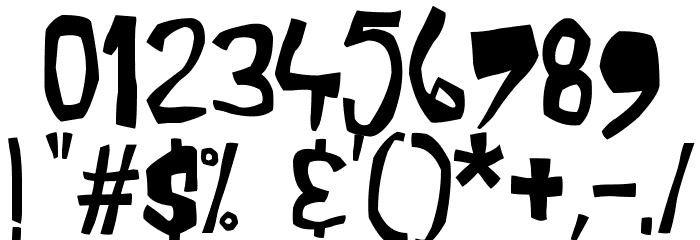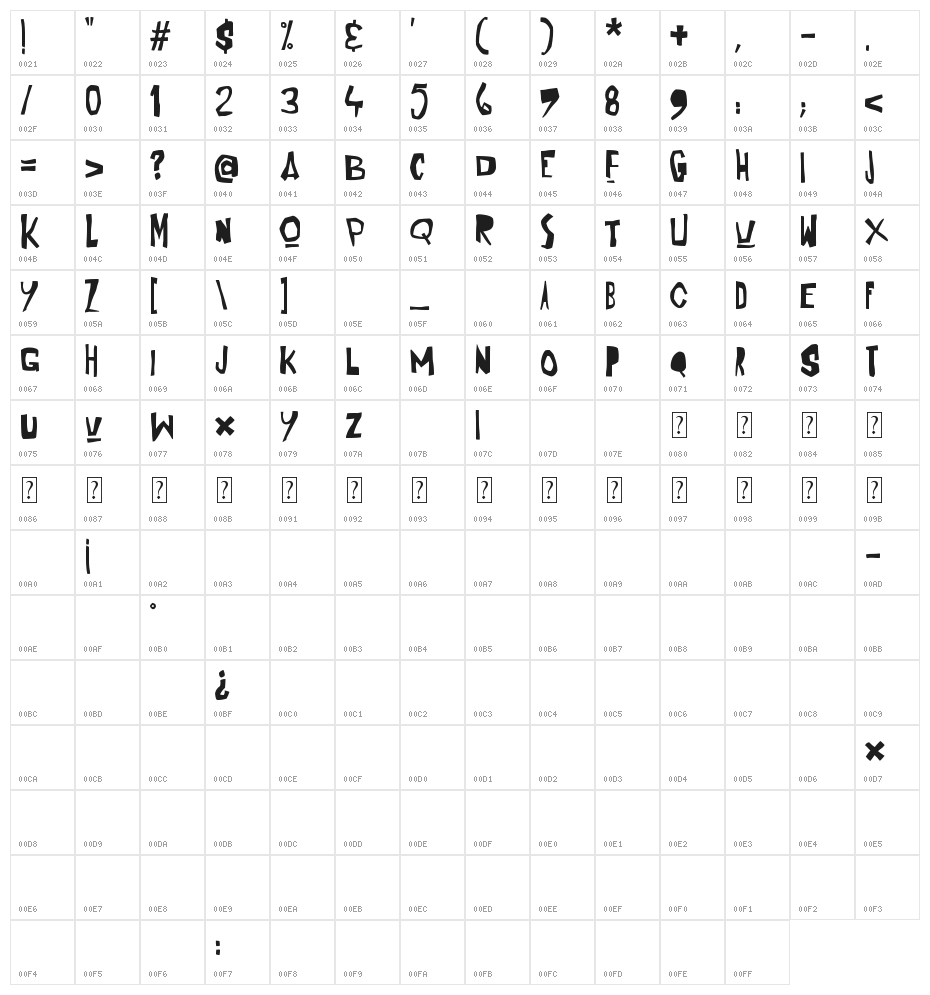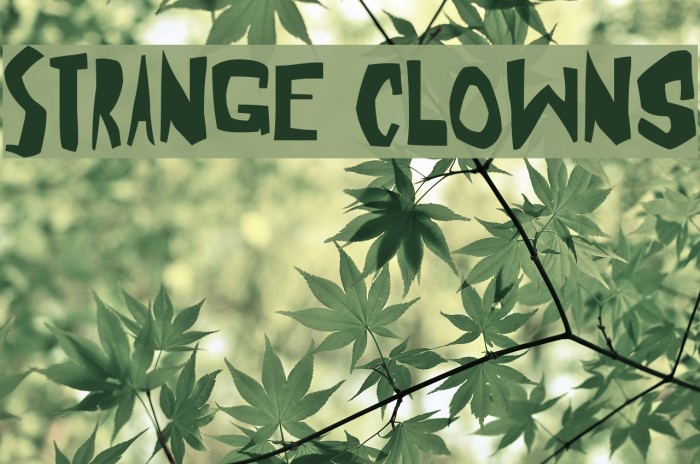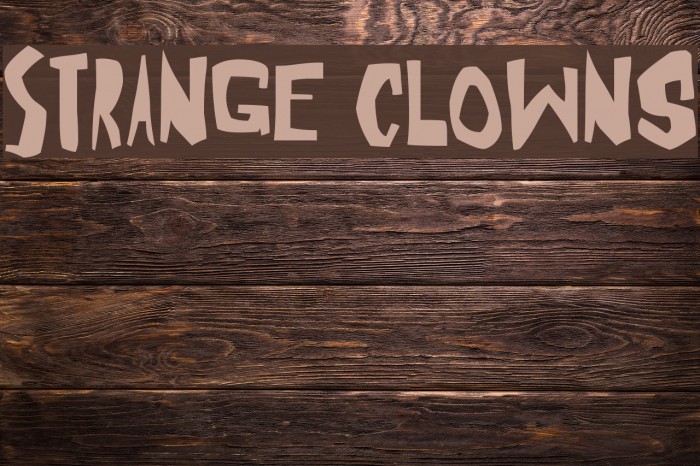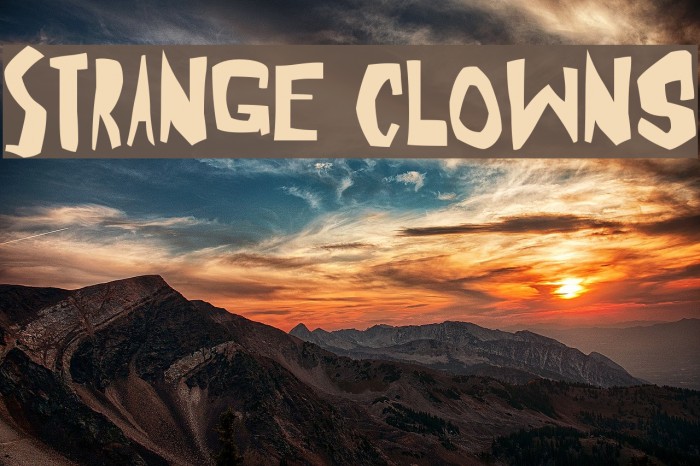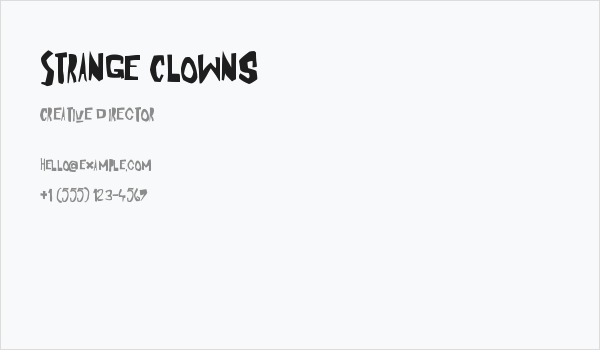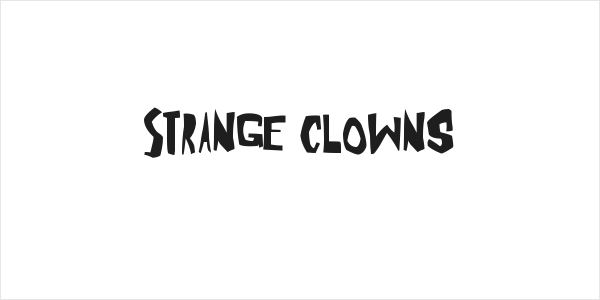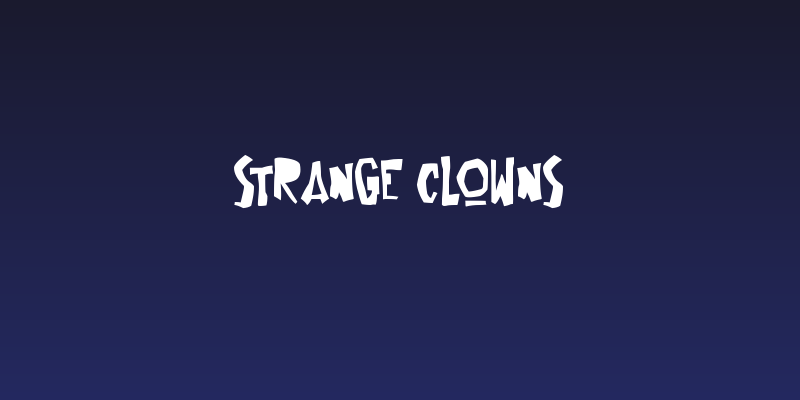
Strange Clowns Font
Strange Clowns Description
This font exudes a playful and whimsical vibe with its irregular, bold letterforms that seem to dance across the page. Each character is uniquely shaped, giving the font a hand-drawn, artistic feel. The uppercase and lowercase letters maintain a consistent style, while numbers and special characters add to the quirky aesthetic. The font's uneven lines and varying thicknesses create a dynamic look, making it ideal for projects that require a touch of creativity and fun. Its distinctive style is sure to capture attention and add personality to any design.
| Proposed Projects | Perfect for children's book covers, playful posters, creative branding, and artistic invitations. |